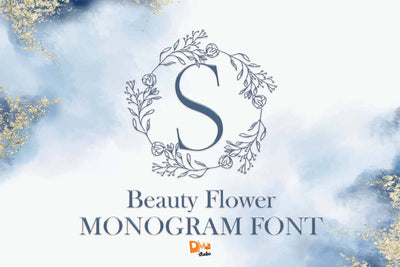
Beauty Flower Monogram
Beauty Flower Monogram – Elegant Floral Decorative Letters
Beauty Flower Monogram is a sophisticated set of ornamental initials featuring luxurious floral embellishments intertwined with each letterform. Designed to evoke beauty and grace, this monogram style is ideal for upscale invitations, personal branding, custom gifts, home decor, and elegant logos. With its ornate yet balanced floral flourishes, this monogram collection brings a classic romantic feel to any project.
Intricate Floral Embellishments: Each uppercase letter is adorned with graceful floral illustrations, creating an elegant and artistic impression.
Monogram Focus: Includes standalone uppercase letters styled for monogram use.
Complete A–Z Set: All 26 capital letters are provided, each uniquely designed with florals.